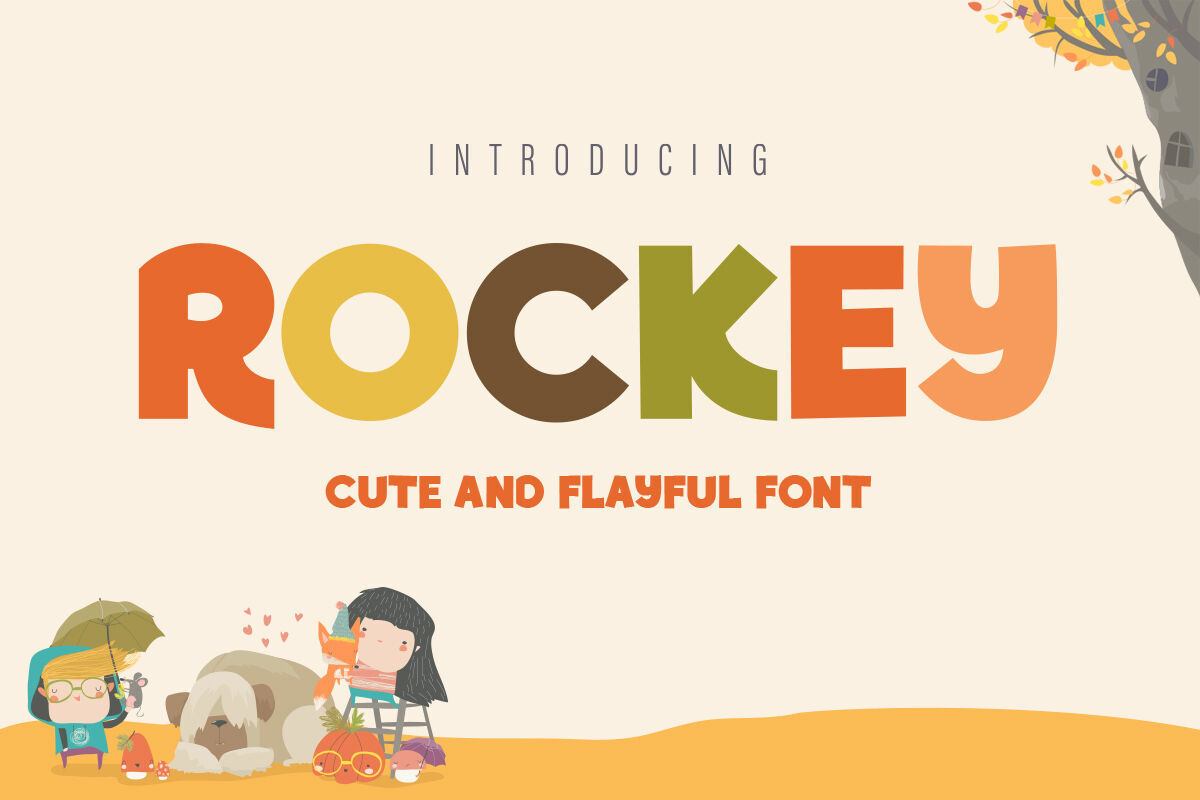
ROCKEY Font Free Download is a bold and energetic display typeface designed to pack a punch. With its strong, sporty letterforms and confident curves, this font is perfect for athletic branding, motivational posters, streetwear designs, esports logos, and any project that needs a powerful, modern edge.
Whether you're crafting a dynamic headline or a standout logo, ROCKEY delivers high-impact visuals with a clean, competitive vibe. It’s ideal for both digital and print formats, and its bold presence ensures your message never gets lost. Feel free to test it out with a free download—just don’t forget to purchase a license for any commercial or profit-based use.
Charge up your next design with ROCKEY Font Free Download, and bring strength, confidence, and style to your typography. It’s a go-to font for creators who play bold and design louder.